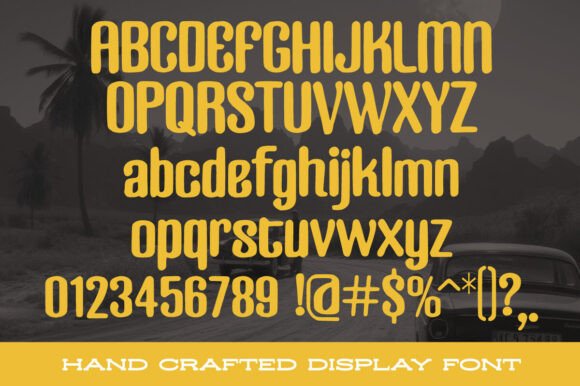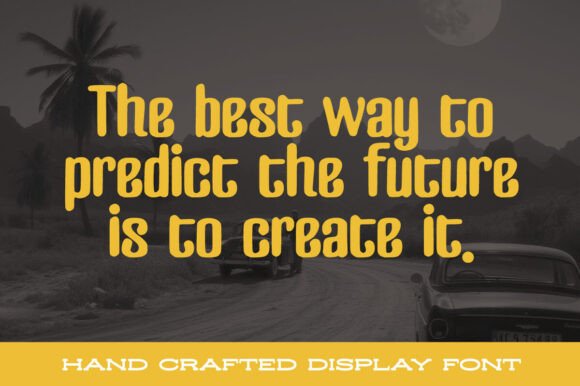
Introduction to Hyperplex Font
Hyperplex is a tall, condensed font with a hand-crafted feel, combining sleek, futuristic aesthetics with an organic touch.
Its elongated letterforms give it a modern and high-tech appeal, while the hand-drawn imperfections add warmth and personality Ideal for sci-fi themes, branding, and bold headlines, Hyperplex stands out with its unique blend of precision and artistry.
Key Features of Hyperplex Font